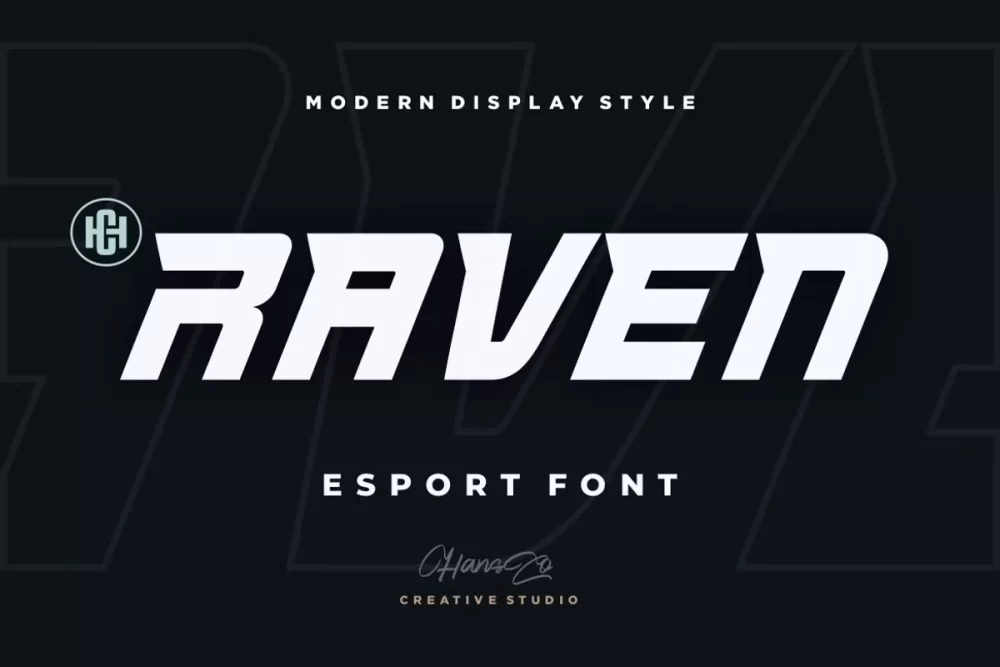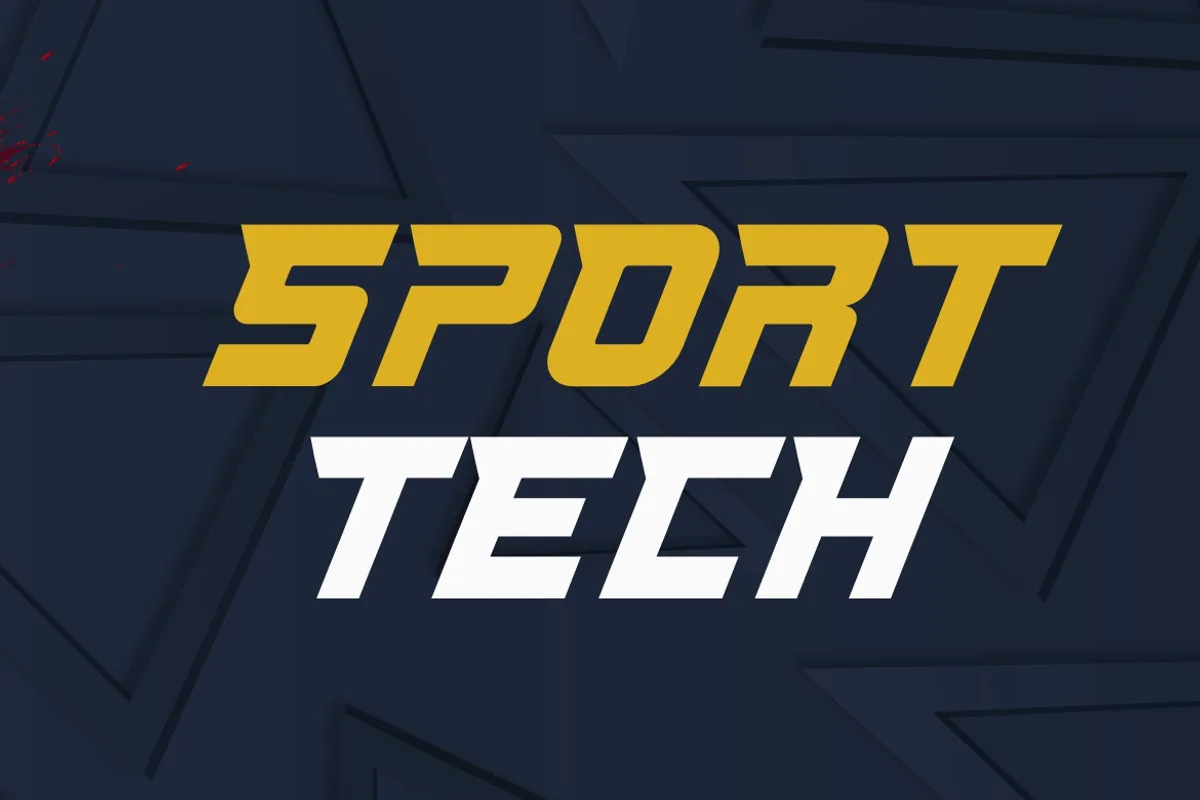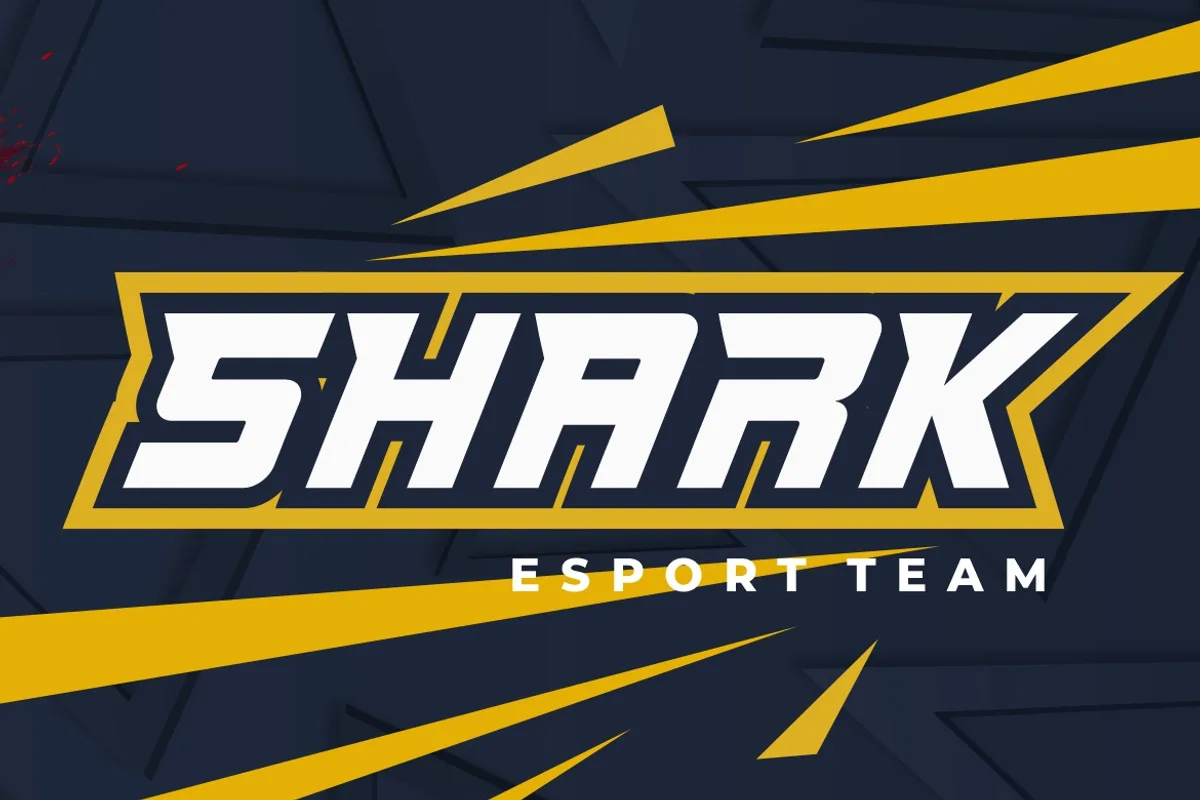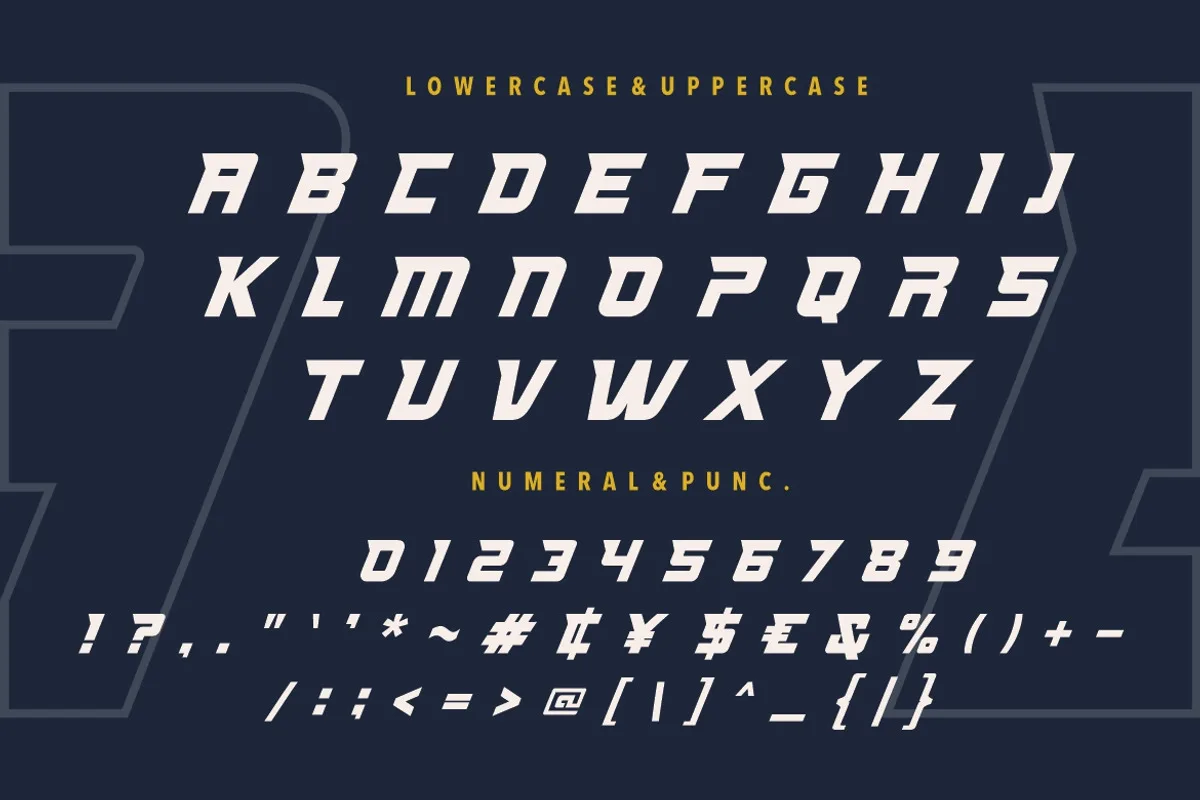
Raven Font
Raven is a sharp italic and bold display font with unique style that will make your design looks modern, geometric and futuristic. You can use this font for any purpose, especially to make logotype like a technology or sport logo brand, headlines, e-sports logo, t-shirt, label, name card, badge, poster, sci-fi, modern economy and many more.
Raven font preview — sample text
Raven font alphabet, numbers and glyphs
Raven font style preview